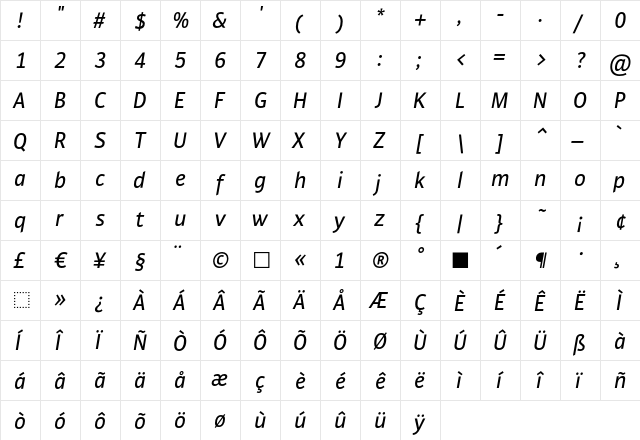
GakSans RegularItalic
Design Context for GakSans Typeface
GakSans offers clean, dependable letterforms without strong stylistic allegiance, making it a practical choice for designers who need flexibility. The dynamic lean of this cut emphasises speed and emphasis in any layout.
Pro Tip: Use GakSans for emphasis, pull quotes, and subheadings where its slanted energy can add rhythm to the layout.